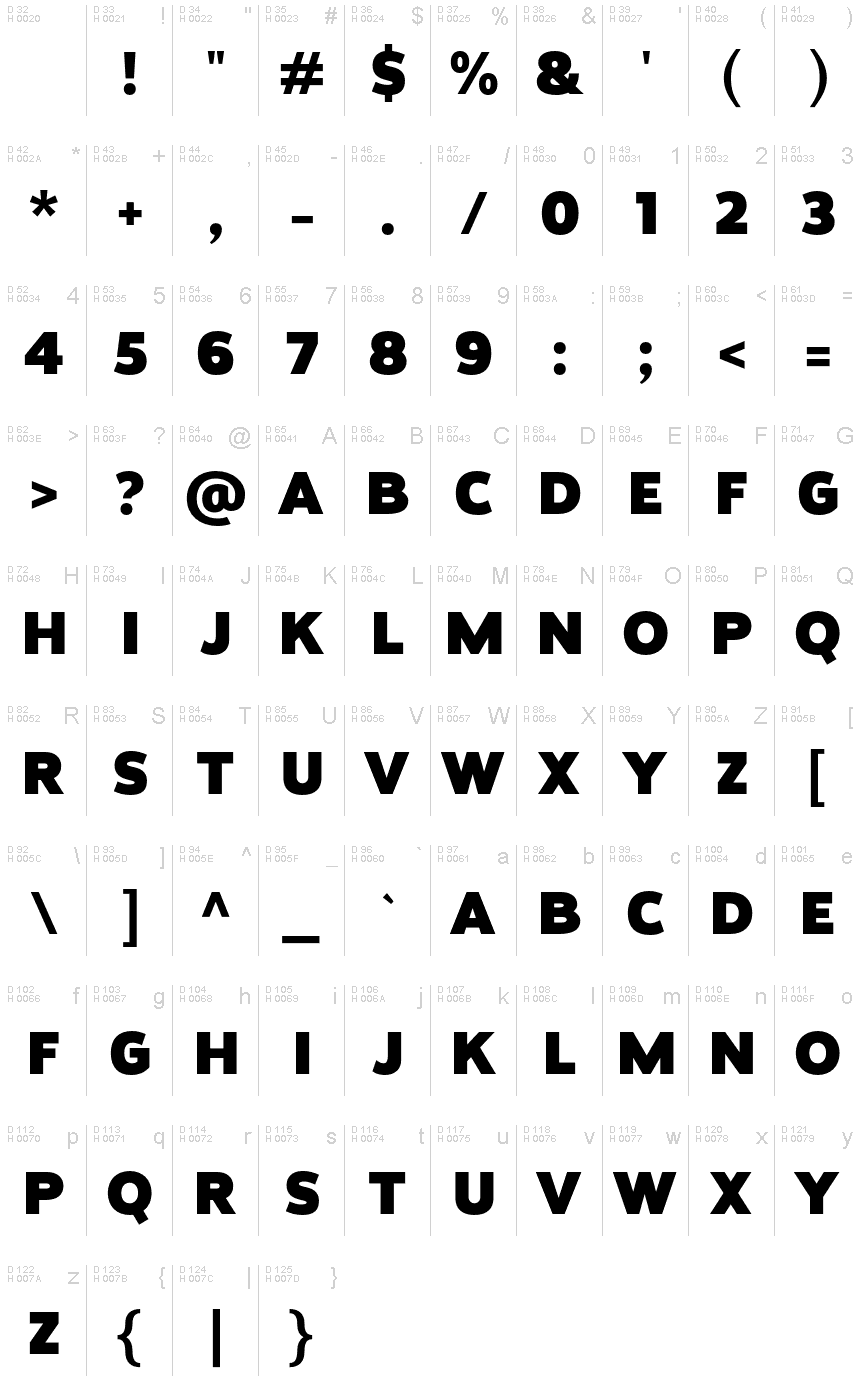
Deli-Regular
Deli, an extra-bold sans serif font crafted by Faqih Fawaji, is a versatile typeface that adds boldness and character to any project. Its clean and modern lines make it perfect for branding, packaging design, editorial layouts, and social media graphics. The thick strokes of Deli bring attention to headlines and titles while ensuring readability in smaller sizes. From fashion magazines to streetwear brands, Deli's boldness is suitable for any project looking to make a statement. With its unique personality and timeless style, Deli is the perfect choice for designers seeking a font with attitude.